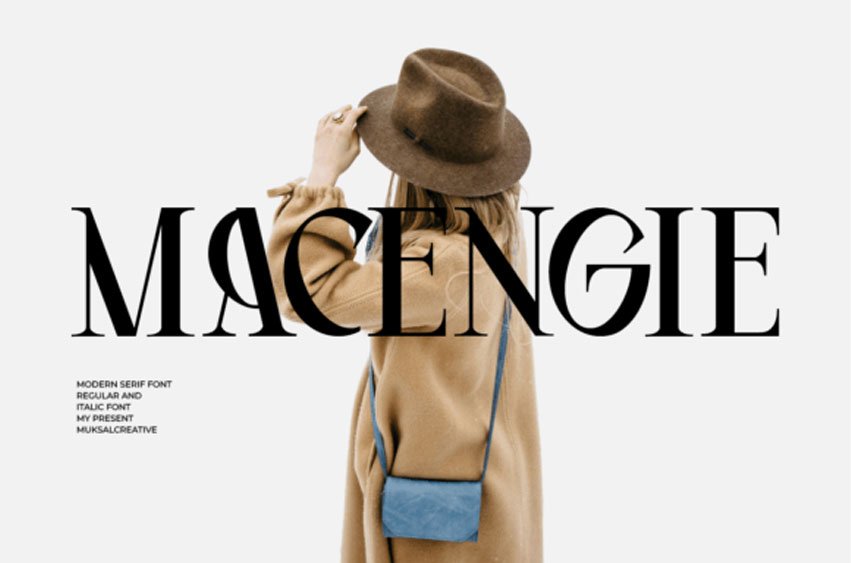
Macengie Font is a serif font that embodies modern sophistication and adaptability. This versatile design asset comes in both regular and italic styles, offering an array of options to amplify your creativity.
Macengie’s slick and stylish serifs inject a dose of finesse into your design projects, making it an ideal choice for innovative logo branding pursuits seeking a modern outlook. Embracing a universally appealing aesthetic, Macengie seamlessly transitions across digital and print media, actively enriching any design it enhances.